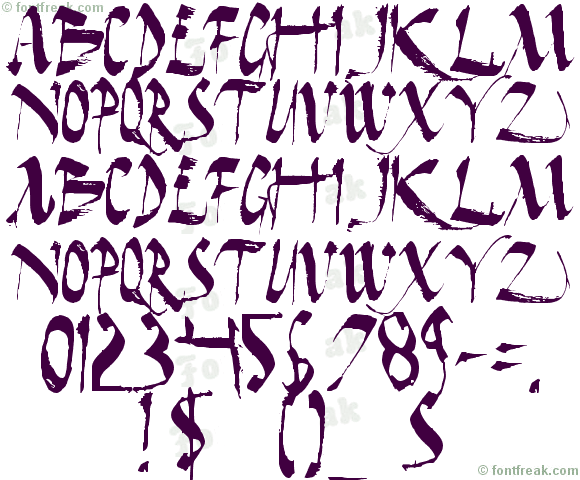
Dark Horse
About Dark Horse
The Dark Horse font by Iconian Fonts is a striking display typeface that captures attention with its unique characteristics. This font embodies a bold, decorative style, making it perfect for projects that require a strong visual impact. The strokes exhibit a dynamic weight, creating an interesting contrast that enhances its dramatic flair. The letterforms are distinctively irregular, with varying thicknesses that contribute to its energetic appearance. The spacing between characters is designed to maintain readability while allowing the font's artistic edges to shine through.
Dark Horse is particularly well-suited for various creative applications. It's an excellent choice for movie posters, where its boldness can convey excitement and intrigue. Additionally, this font can elevate the design of album covers, providing a memorable and edgy aesthetic. It's also ideal for event flyers, especially those themed around alternative or edgy concepts, as it draws the eye and sets the mood. Small business owners looking to establish a unique brand identity will find it valuable for promotional materials, ensuring their message stands out. Graphic designers and content creators will appreciate its versatility, as it can adapt to different themes and styles.
The target audience for Dark Horse includes graphic designers, small business owners, and content creators who seek to make a statement with their typography. Whether used for digital or print designs, this font adds a layer of personality and flair that resonates with viewers.
In conclusion, Dark Horse font free download offers a distinctive option for anyone looking to enhance their designs with a bold, expressive typeface. Its unique visual style and versatility make it a standout choice in the realm of decorative fonts, ensuring that your projects will not only capture but also hold attention.